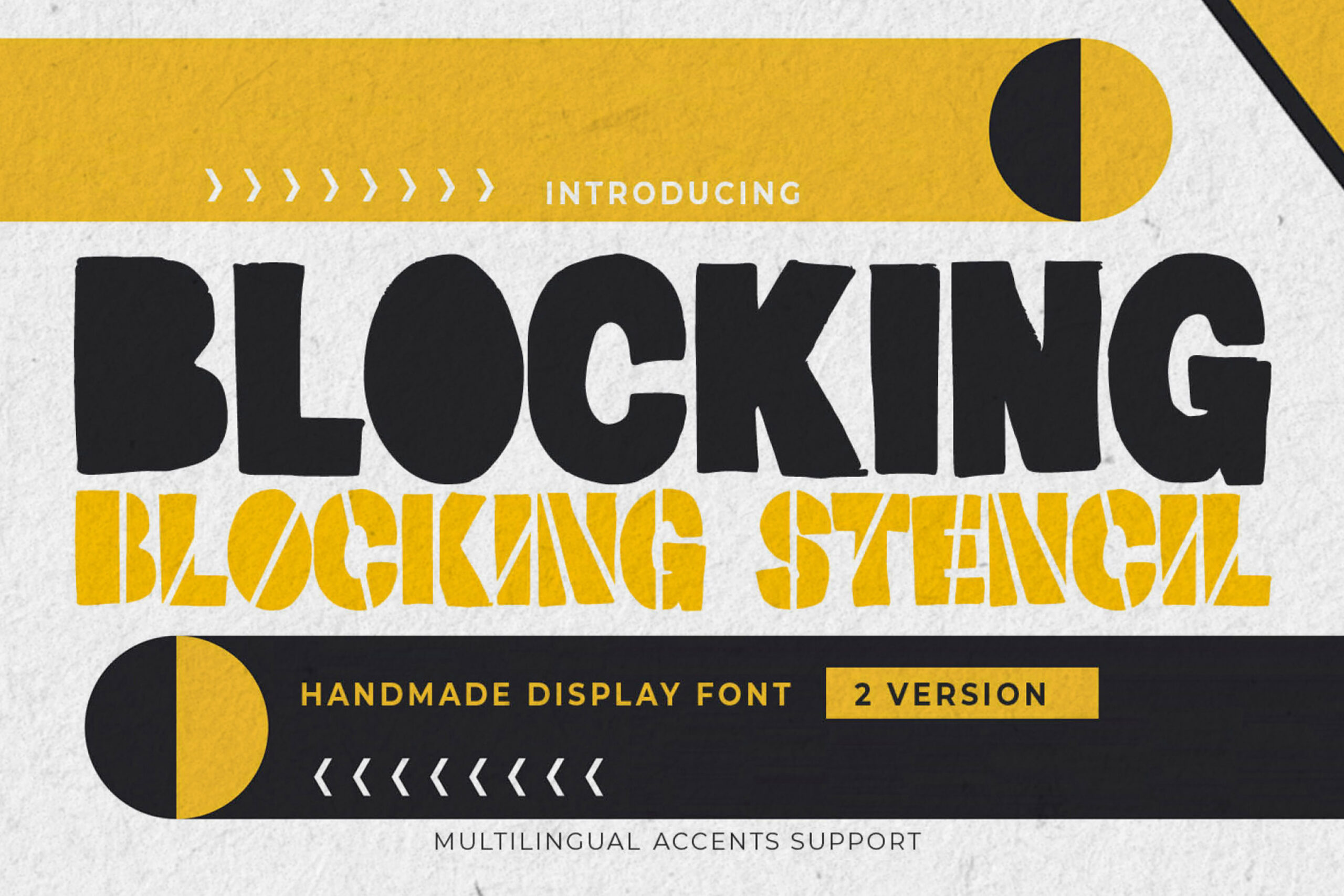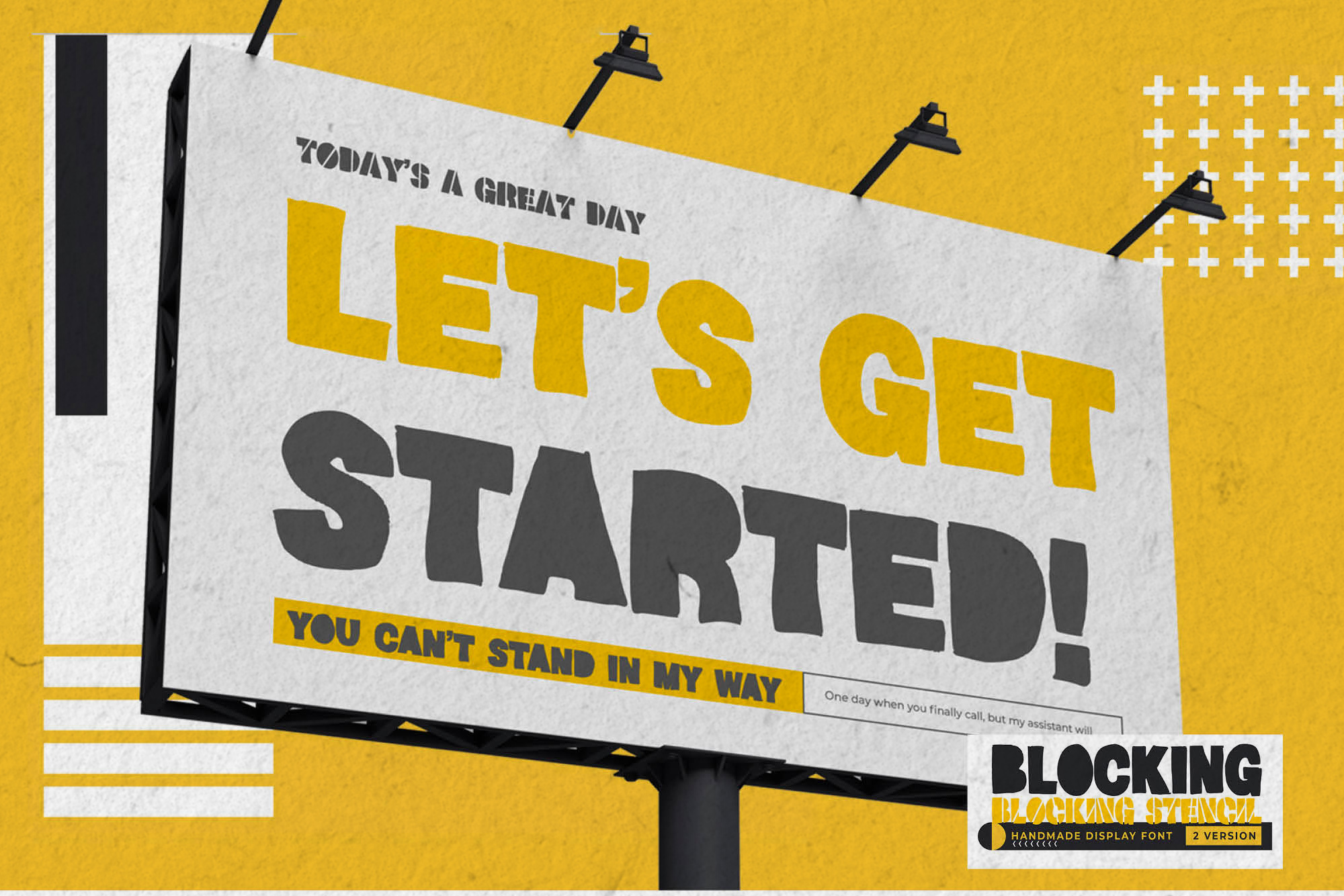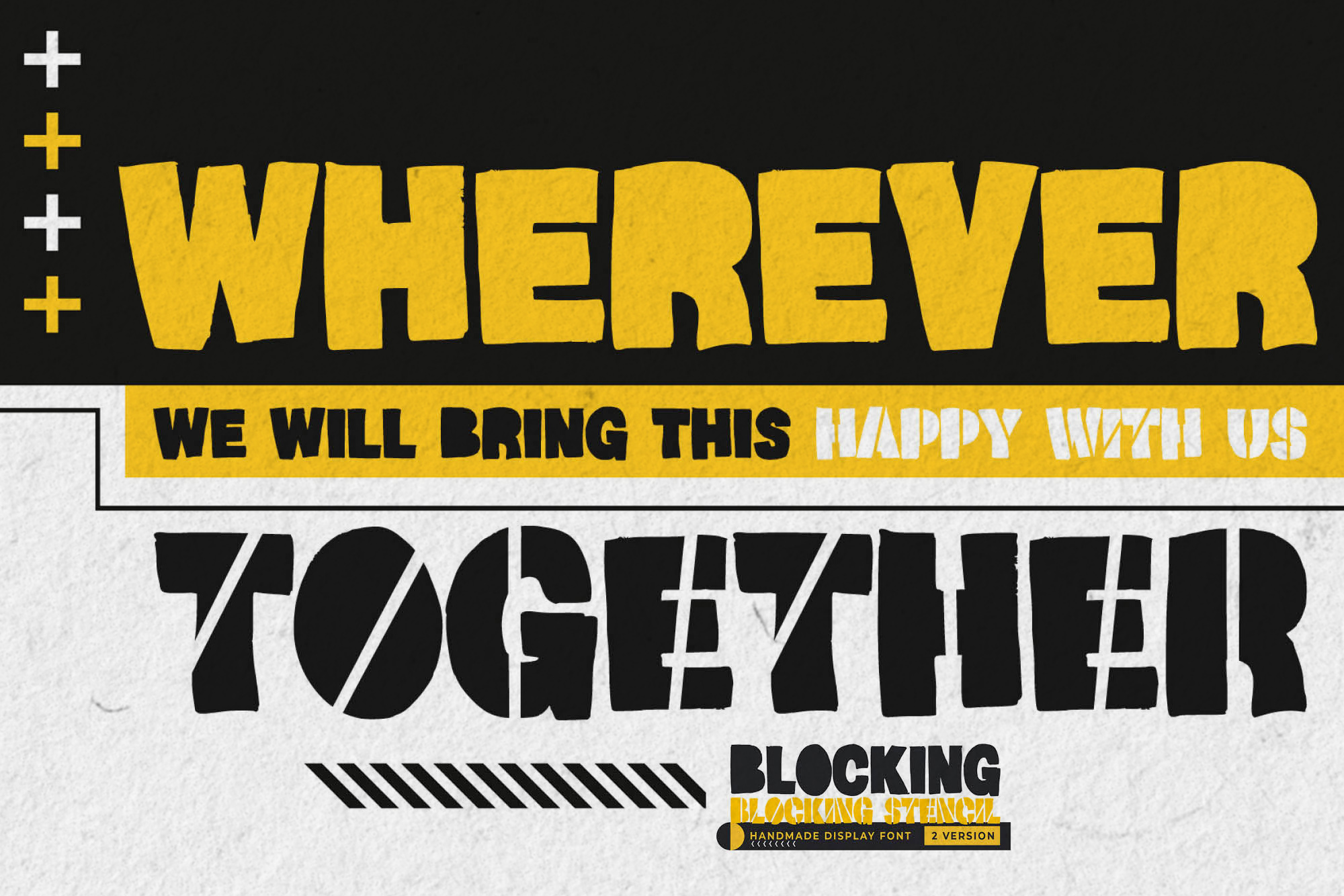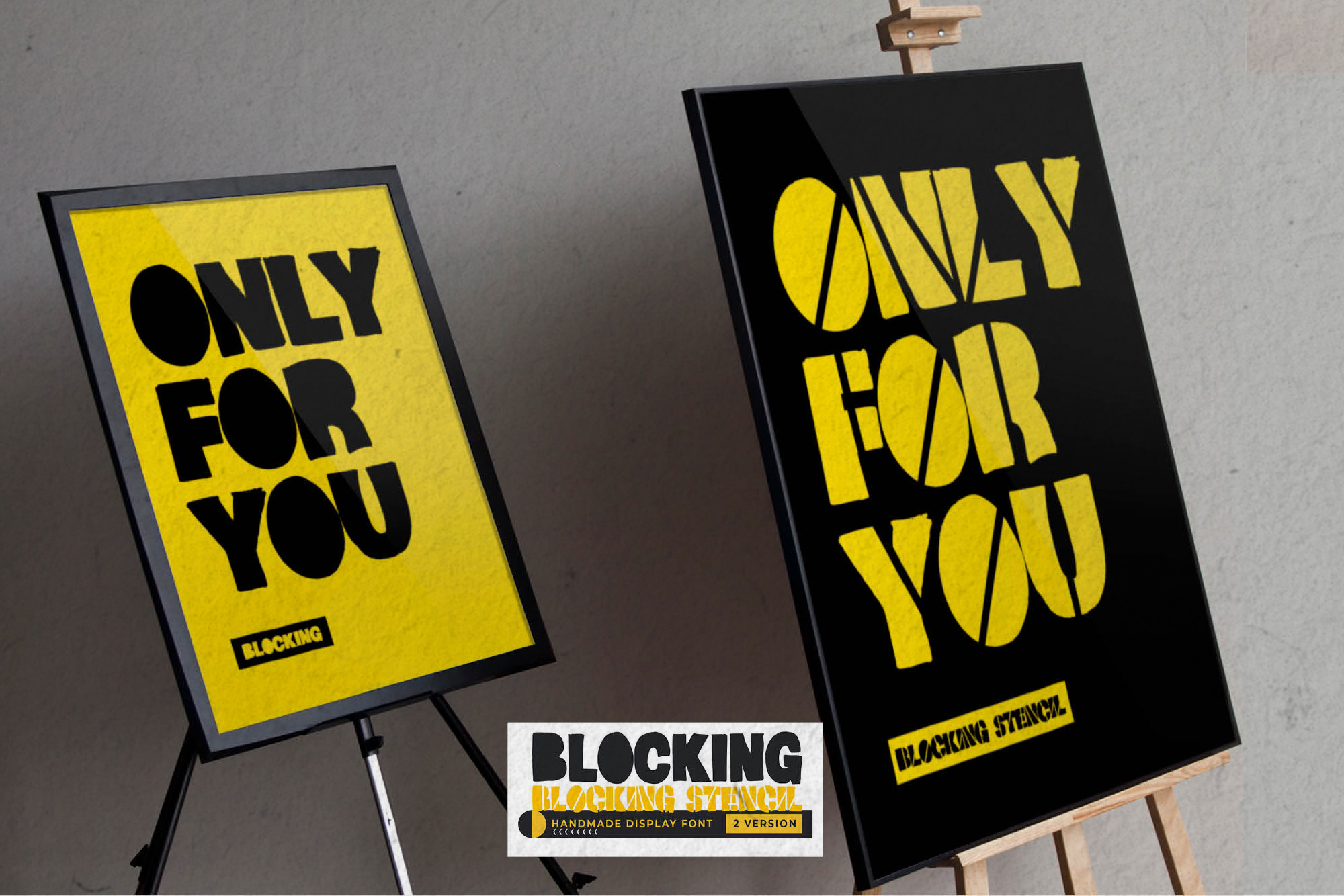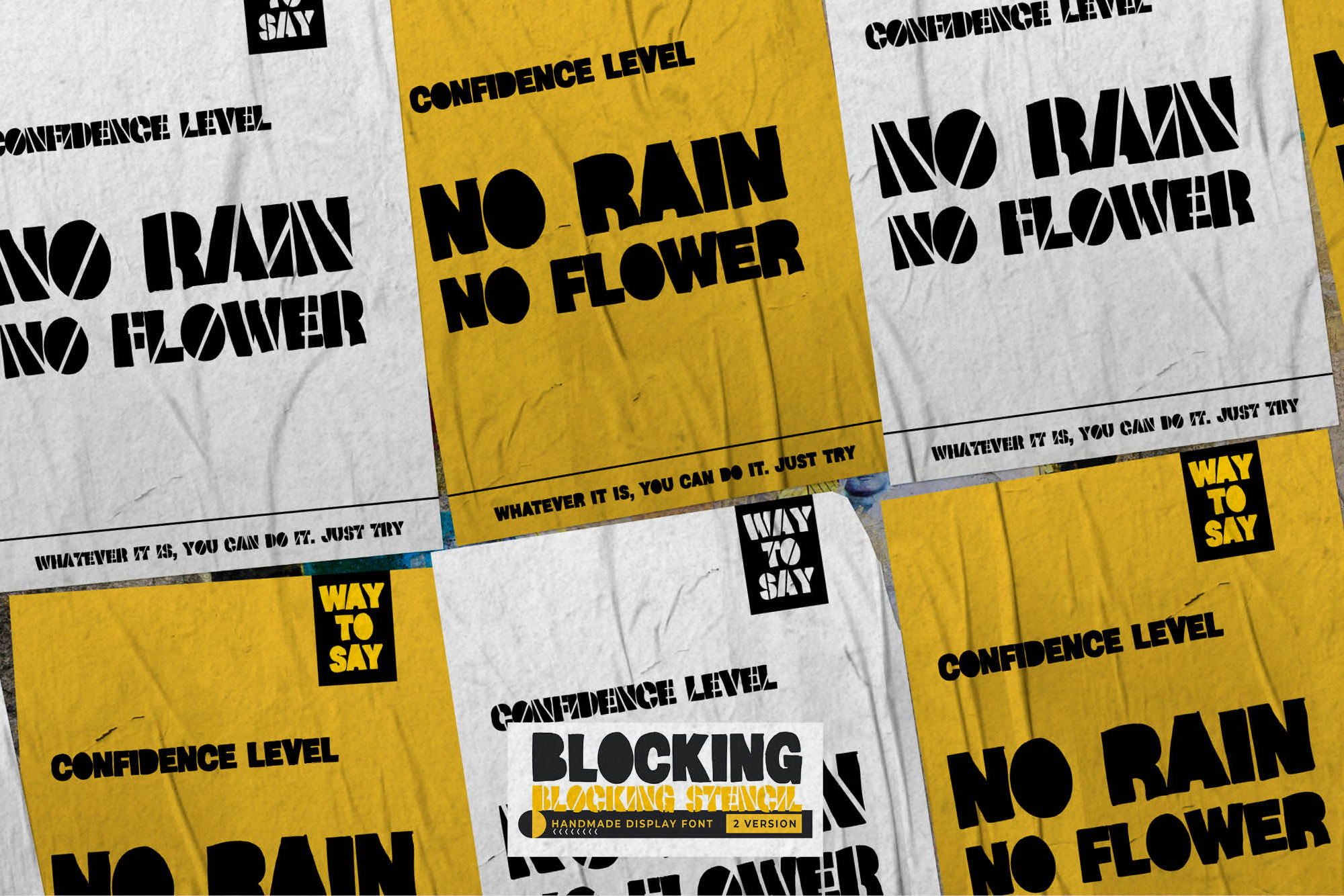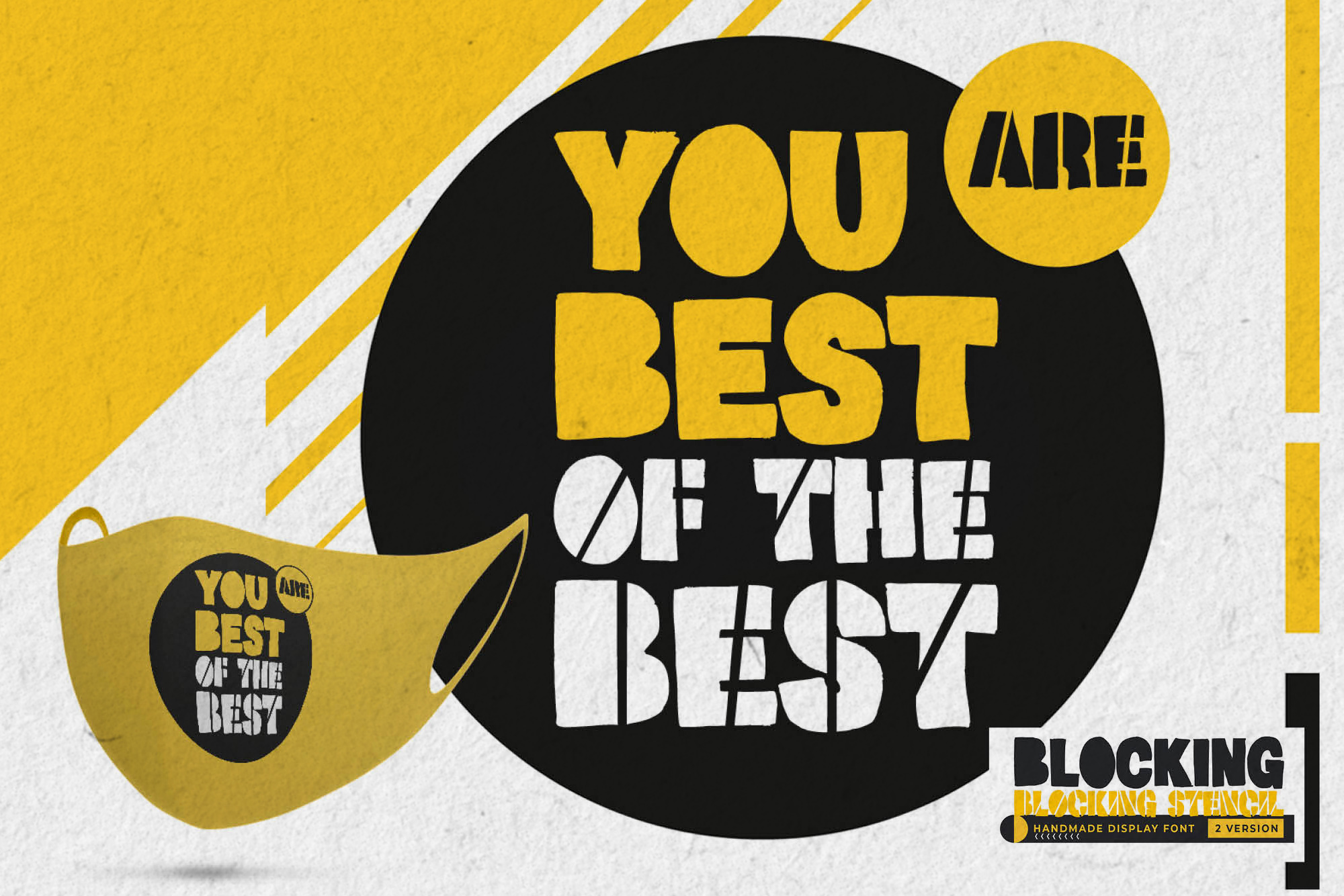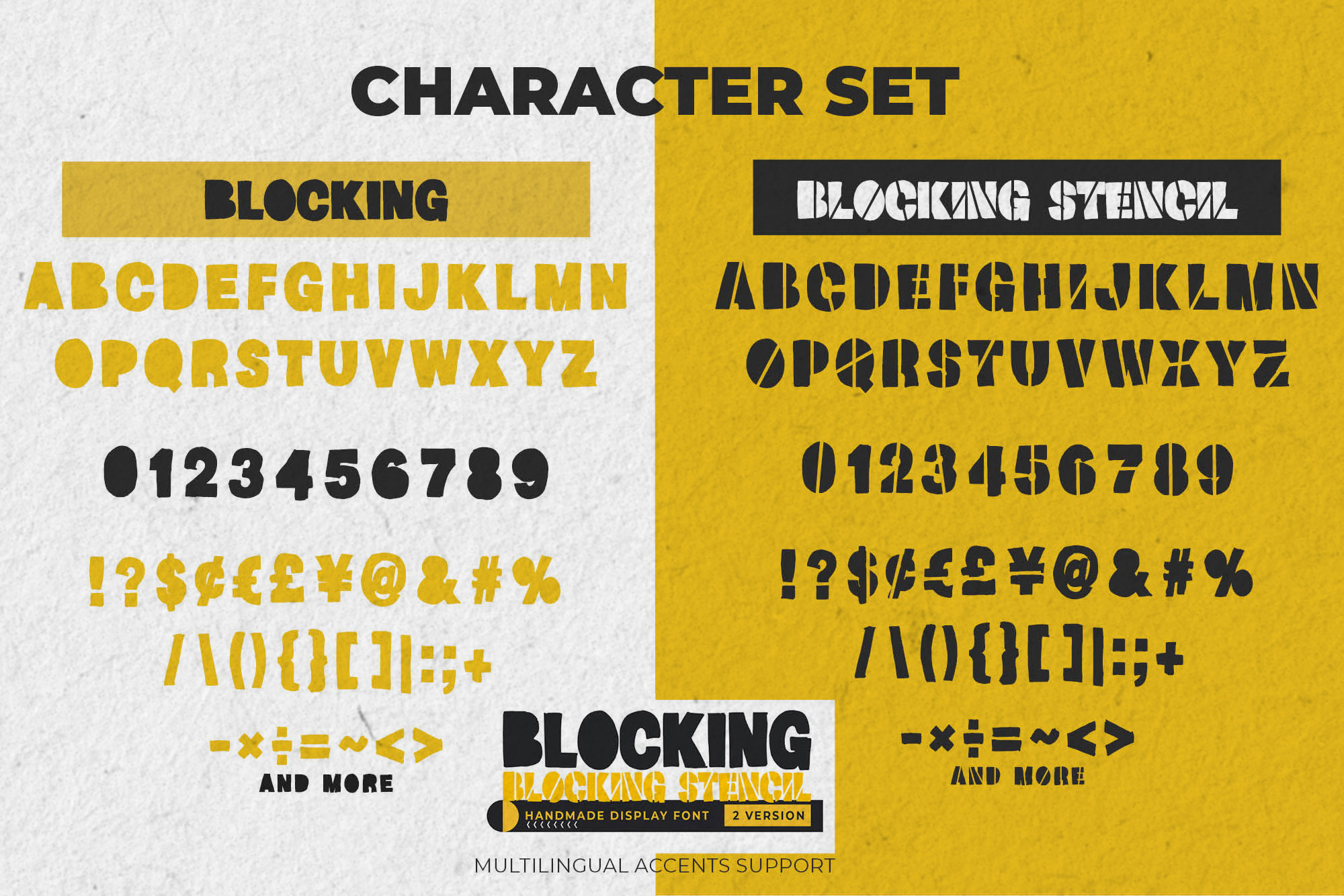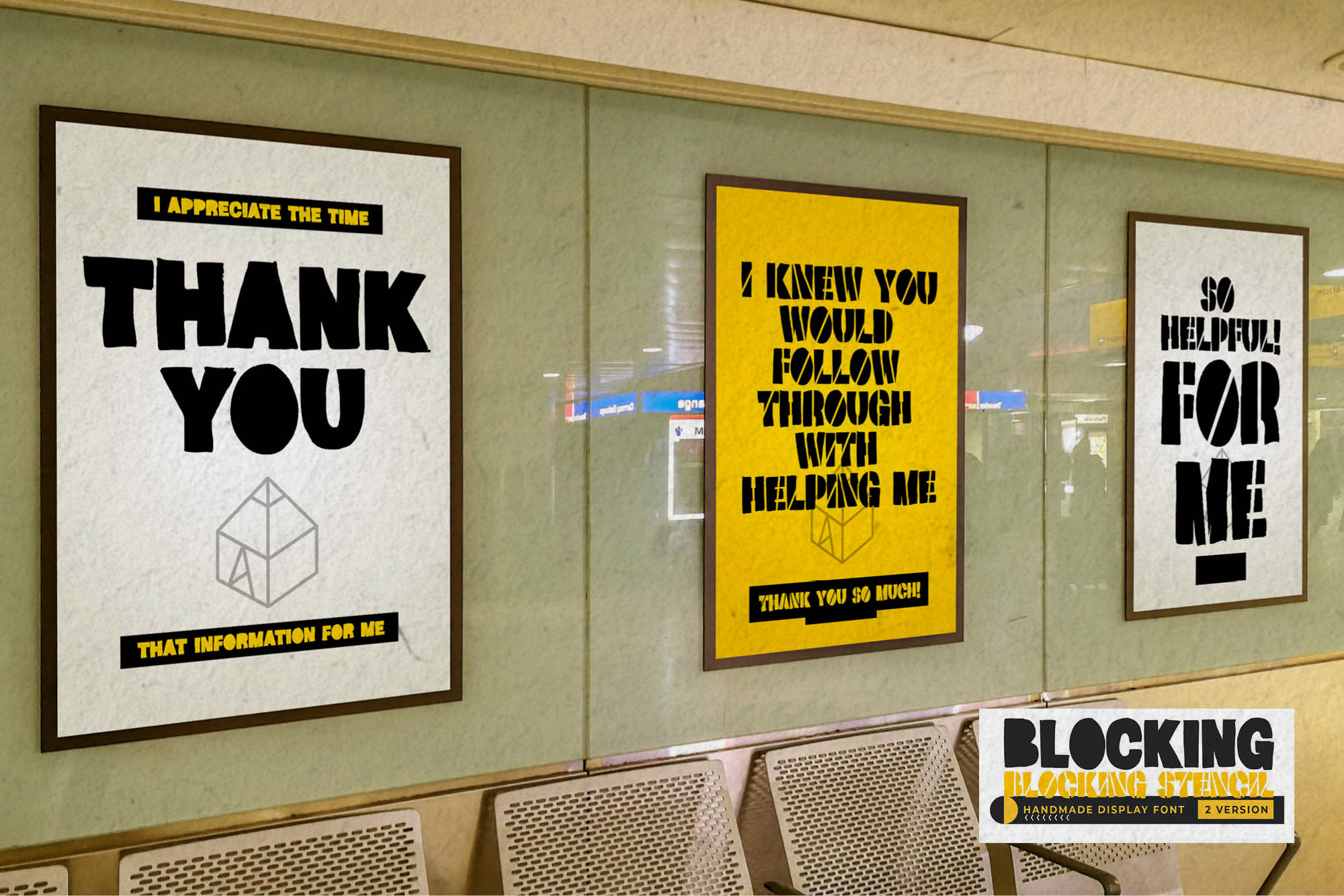
BLOCKING – Handmade Display Font ,sans serif and natural that is written casually and quickly.
That is why BLOCKING has a authentic , and strong characteristic more natural look.
BLOCKING Perfect for designs, branding projects, Logo design,Quotes product packaging and another Project that require cool display font.